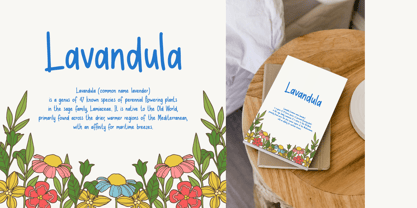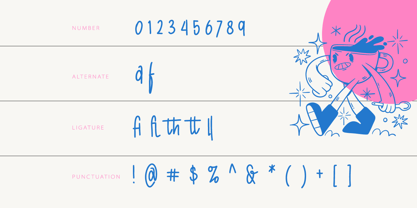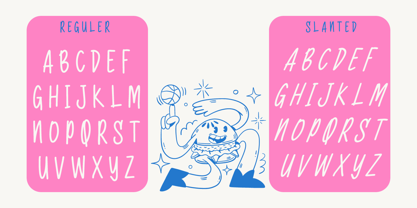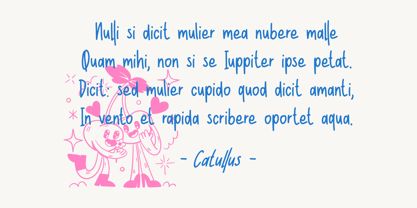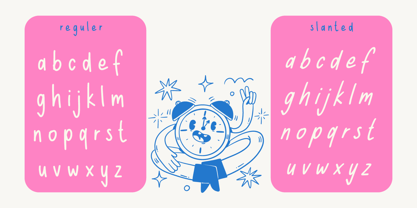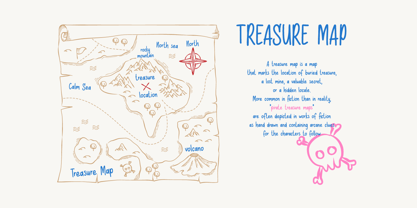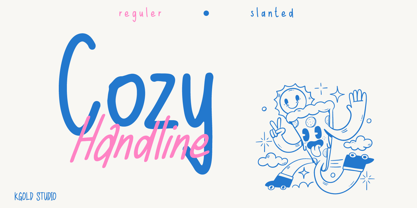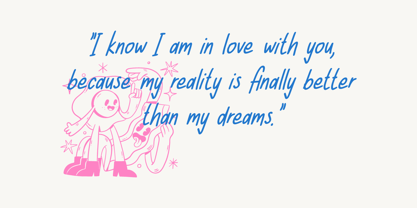
Cozy Handline
by K Gold Studio
The Cozy Handline Font Family was designed by Saeful Maarif and published by K Gold Studio. Cozy Handline contains 2 styles and family package options. More about this family
Cozy Hanline is a warm and expressive handwritten font designed to bring a natural personal touch into your creative projects. With its smooth curves, relaxed flow, and authentic handwritten feel, this font creates a soft and friendly atmosphere that feels both modern and timeless.
Perfect for branding, social media, packaging, quotes, invitations, logos, posters, and lifestyle designs, Cozy Hanline delivers a stylish handwritten look while staying clean and easy to read.
Whether you're creating elegant feminine branding, cozy aesthetic content, or casual signature-style typography, Cozy Hanline adds charm and personality effortlessly.
Features
• Natural handwritten style
• Smooth and flowing letterforms
• Uppercase & lowercase characters
• Numerals and punctuation
• Multilingual support
Cozy Hanline combines comfort, elegance, and authenticity into one beautiful handwritten font that fits perfectly into modern creative trends.
Designers: Saeful Maarif
Foundry: K Gold Studio